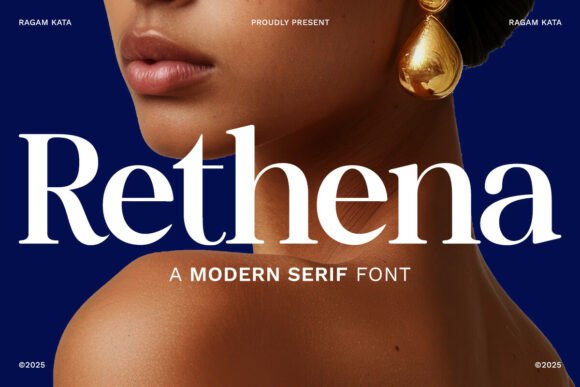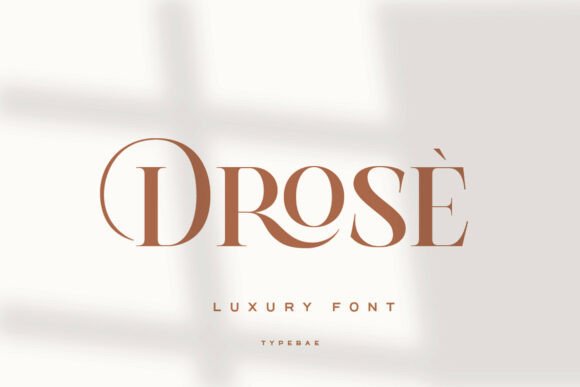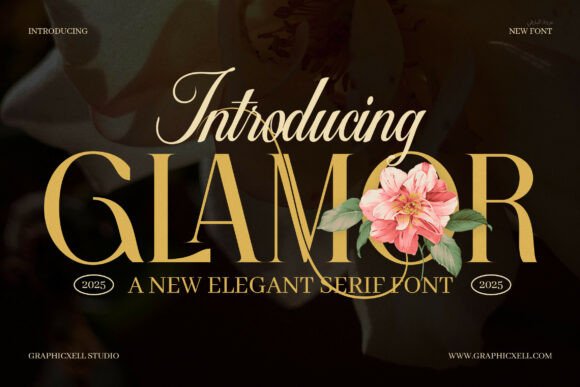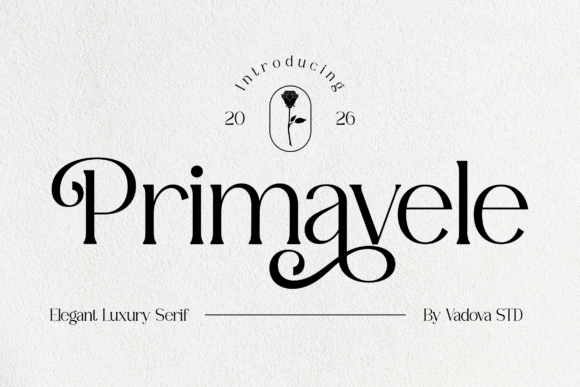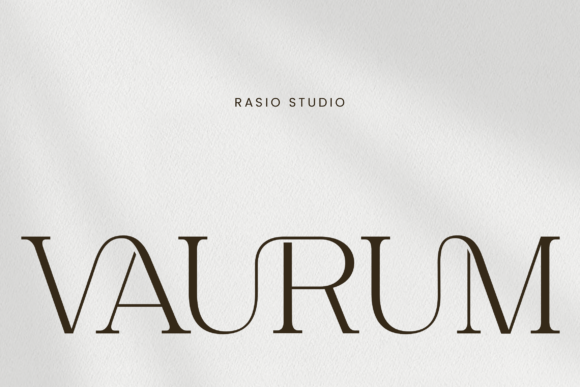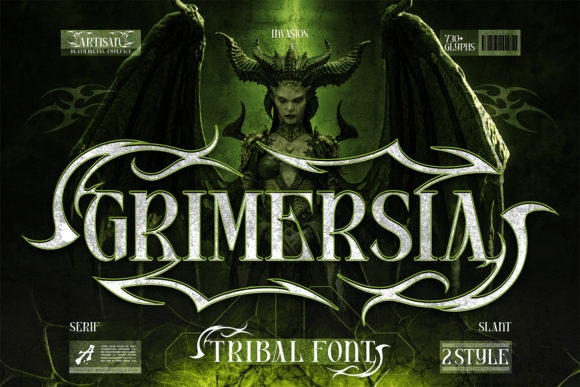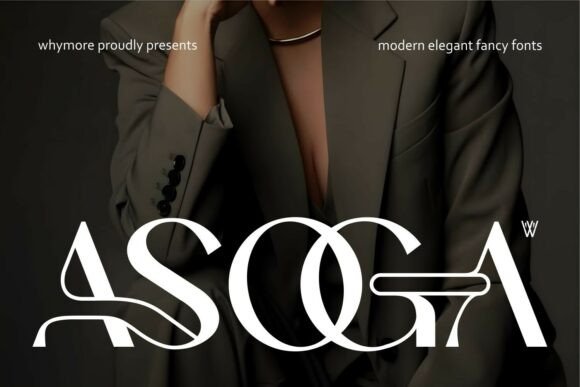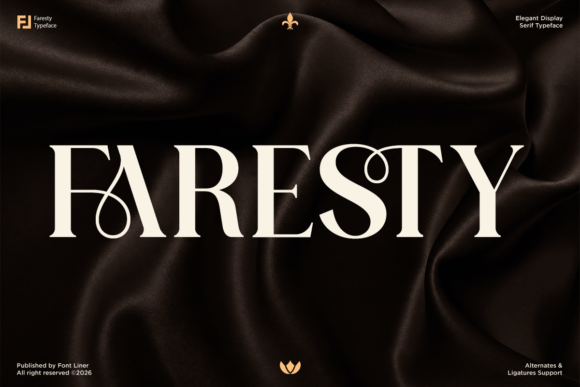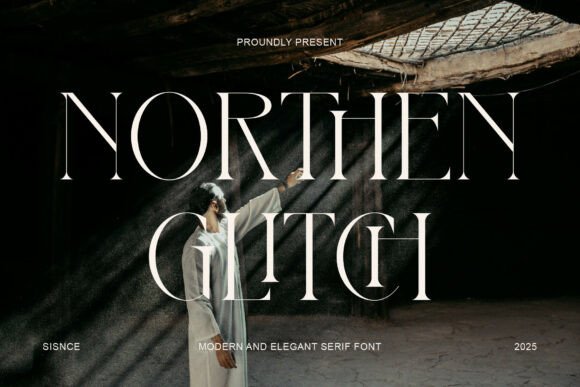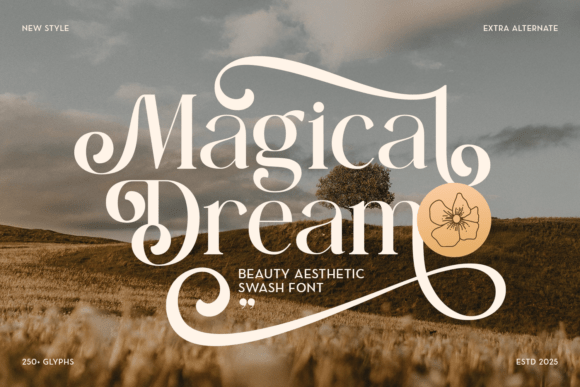
18 Striking Modern Serif Fonts for Branding (2026)
Modern serif fonts for branding hit a sweet spot: the authority of a serif with a clean, current edge that does not feel old-fashioned. That mix suits a brand that wants to look established and contemporary at once, which is why modern serif fonts for branding have become the default for fashion, beauty and lifestyle identities.
To make the choice quick, this guide opens with a comparison table, then runs through 18 fonts with a short great-because and watch-out-for note so you can match the face to your brand.
Modern serif fonts for branding compared
Here is the quick view of the modern serif fonts for branding in this guide, sorted by the feel each one sends.
| Font | Best for | Feel |
|---|---|---|
| Abigale | Fashion wordmarks | Refined, modern |
| Rethena | Statement logos | Bold, high-contrast |
| Kuta | Minimal brands | Clean, calm |
| Grimersia | Edgy labels | Dark, characterful |
| Montclair | Captions, body | Quiet sans |
High-contrast modern serif fonts for branding
Stroke contrast reads as craft. These high-contrast modern serif fonts for branding give a wordmark instant polish and a fashion-editorial edge.
Rethena Font
Rethena is a bold, strikingly elegant modern serif that commands attention. Among high-contrast modern serifs it makes a statement wordmark for a premium label. Great because the contrast reads as craft and money; watch out for small print, where the thin strokes can break up. Use it large and keep the print clean. For a brand that wants a dramatic, high-contrast serif logo, Rethena is a powerful font worth a look.
Drose
Drose is a modern luxury serif with stylish curves and refined high contrast. Among these modern serifs it reads elegant and a little romantic. Great because the curves keep it warm where pure contrast feels cold; watch out for rough stock, which thins the fine strokes. Use it for the name and headers at size. For a brand that wants a modern high-contrast serif with warmth, Drose is a graceful font worth trying.
Glamor
Glamor is a serif display face joining classic charm with modern style and crisp high contrast. Among modern serif fonts for branding it brings glamour to a wordmark or headline. Great because it reads glossy and confident at size; watch out for using it small, since it is a display face. Pair it with a plain sans for text. For a fashion brand that wants a glossy, high-contrast serif logo, Glamor is a striking font worth a look.
Primavele
Primavele is an elegant serif with refined contrast and graceful curves. Among modern serif fonts for branding it sits between bold and minimal, a flexible wordmark serif. Great because it feels refined yet readable; watch out for setting long text, since it is happiest in headlines and names. Use it for the logo and a clean sans for body. For a brand that wants a graceful, modern high-contrast serif, Primavele is a lovely font worth a closer look.
Vaurum
Vaurum is a refined display serif with elegant high contrast. Among modern serif fonts for branding it brings editorial drama to a wordmark or campaign headline. Great because the sculpted contrast reads premium; watch out for small sizes, where the fine strokes vanish. Use it large with a minimal sans below. For a brand that wants a dramatic, display-grade modern serif, Vaurum is a striking font worth trying.
Abigale
Abigale is a masterclass in modern serif sophistication. Among modern serif fonts for branding it makes a refined fashion wordmark, balancing contrast and clean construction. Great because it reads polished at size and stays legible smaller; watch out for going too small, where the contrast thins. Use it for the name and a clean sans for detail. For a fashion or beauty brand that wants a refined modern serif logo, Abigale is a graceful font worth a close look.
Bold modern serifs with character
For brands that want presence, these bolder modern serifs bring weight and personality to a logo or headline.
Grimersia
Grimersia is a bold serif inspired by tribal aesthetics and dark mythology. Among bold modern serif fonts for branding it is the most characterful, suiting an edgy, alternative label. Great because it brings a distinctive, dark personality; watch out for context, since it is too strong for delicate brands. Use it for the name and a clean sans for the rest. For a bold, alternative brand that wants a dark serif logo, Grimersia is a distinctive font worth a careful look.
Asoga